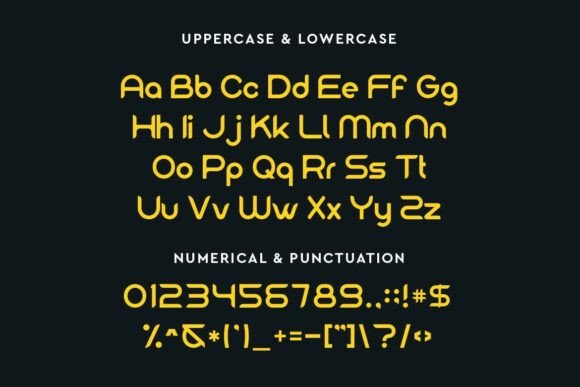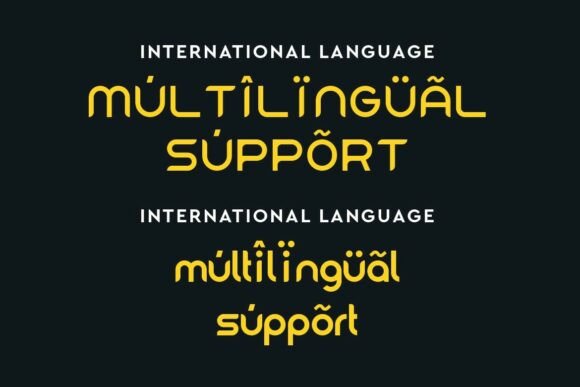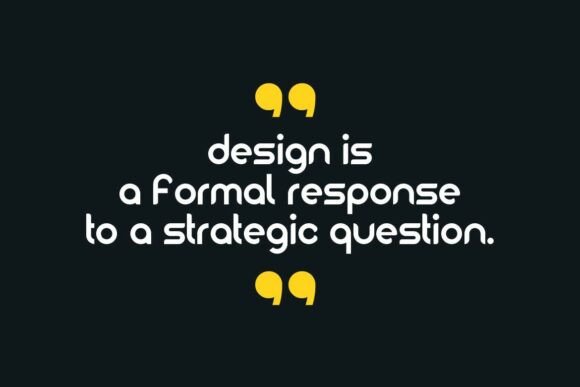
Introduction to Labora Font
Have you ever stared at a blank page, eager to bring your creative vision to life, only to be held back by the perfect font? The one that balances clarity and style, elevating your design from good to great? For designers, finding that elusive font can be a game-changer, and that’s where Labora Font comes in – a high-quality, free download that’s poised to become your go-to design resource.
With its clean and versatile sans serif design, Labora Font is the perfect companion for your next creative project. From branding and corporate identity to editorial layouts and UI/UX design, this font’s straightforward letterforms and balanced proportions make it a versatile choice for both digital and print environments. And with a transparent background, you can focus on the creative process, not the technicalities.
Key Features of Labora Font
- High-quality design: Labora Font is crafted with attention to detail, ensuring a sophisticated and professional look for any creative project.
- Unique characteristics: Labora Font boasts a distinctive and modern design, perfect for creative projects that require a touch of elegance and sophistication.
Honest Review: Labora Font
As a designer, I’m always on the lookout for high-quality design resources to enhance my creative projects. Recently, I came across the Labora Font, a free download that caught my attention.
What works well for me is the transparent background, which allows for seamless integration with my design compositions. The Labora Font also has a unique, modern aesthetic that can add a touch of sophistication to any creative project.
- ✨ Unique aesthetic: The Labora Font has a distinctive look that sets it apart from other fonts in its class.
However, I do have a few reservations. ⚠️ The font may not be as versatile as some other fonts on the market, and it may not be suitable for projects that require a wide range of font styles.
Overall, I’m impressed with the Labora Font. While it may have some limitations, its unique aesthetic and transparent background make it a valuable resource for designers working on creative projects. If you’re looking for a high-quality, modern font to add to your design library, the Labora Font is definitely worth considering.
Labora Font is perfect for creative projects such as brochures, flyers, business cards, and social media graphics. Its high-quality design and transparent background make it versatile and easy to use in a variety of design applications.